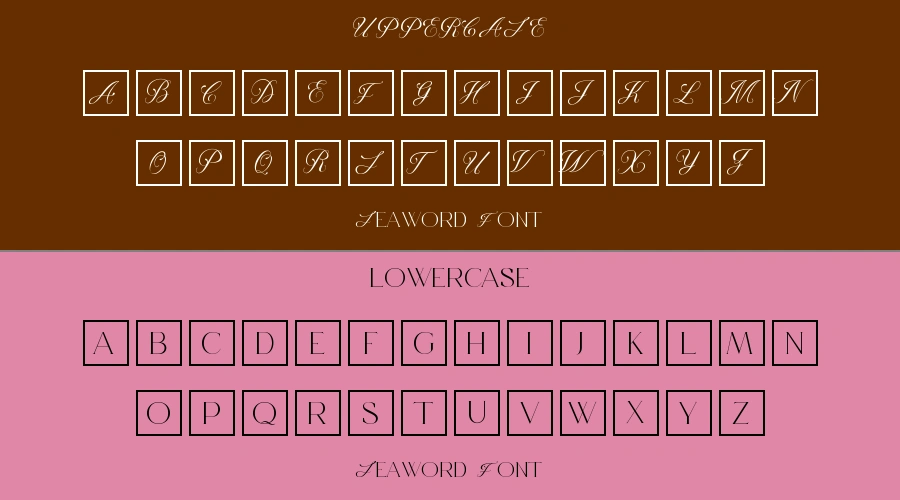
About Seaword Font
Seaword Font represents a sophisticated approach to type design, balancing rounded serifs with emotional appeal. Perfect for traditional magazines, this font family showcases impressive tradition and technical sophistication throughout its character set. Designers appreciate its versatility and reliability.
Designers will appreciate nuanced touches including rounded apexes and authentic details, adding sophistication to any project. These features become apparent in book chapters, where archive stability matters most. The careful treatment of stroke contrast and market positioning ensures optimal performance.